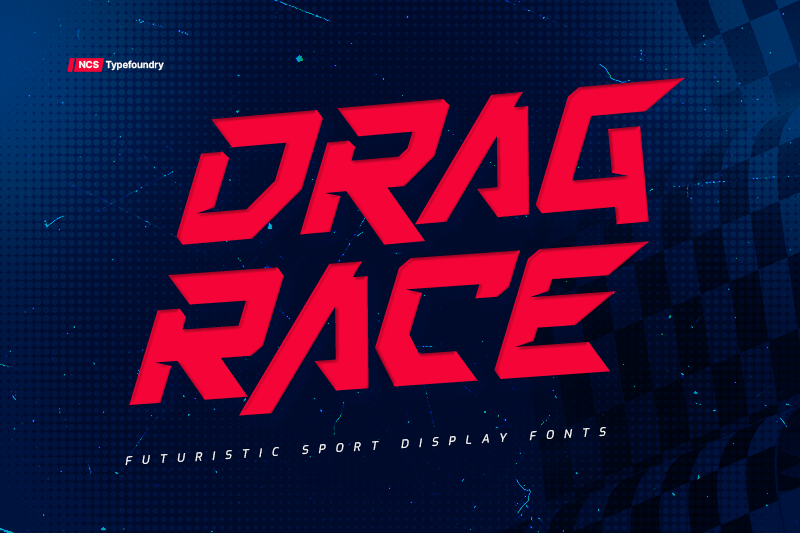
Font name: | Dragrace |
Author: | Namara Creative Studio |
Note by Namara Creative Studio | |
Strong & unique characteristic combined with modern style, Suitable for headline, film/games cover, logotype, label design and automotive purposes. NOTE : - This Font is PERSONAL USE ONLY, NO COMMERCIAL USE ALLOWED! - For Full Version and COMMERCIAL USE, please purchase license here https://onedsgn.com/product/dragrace/ |